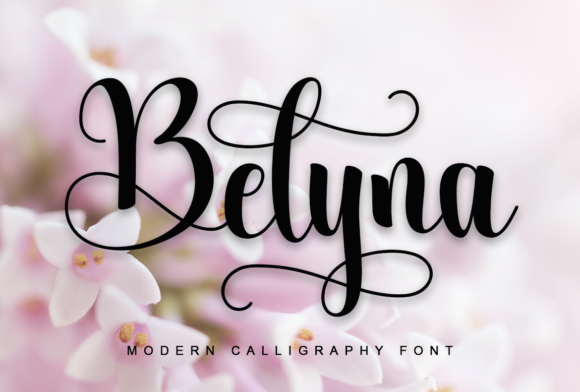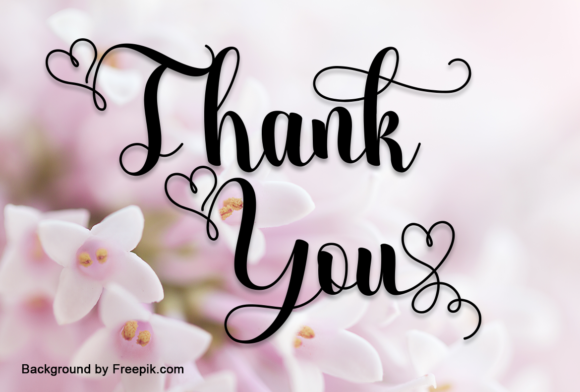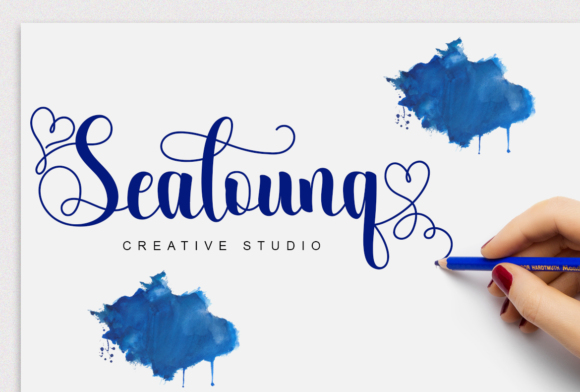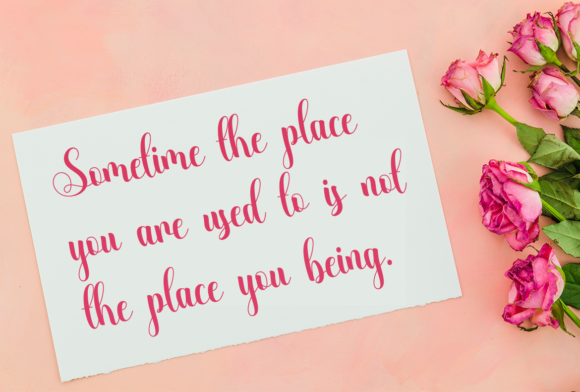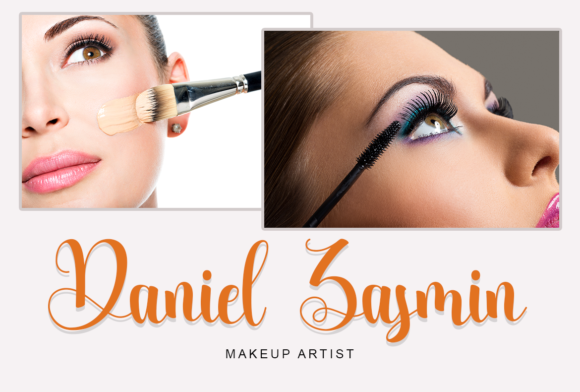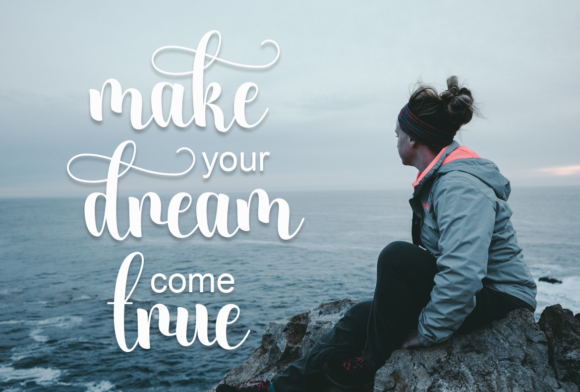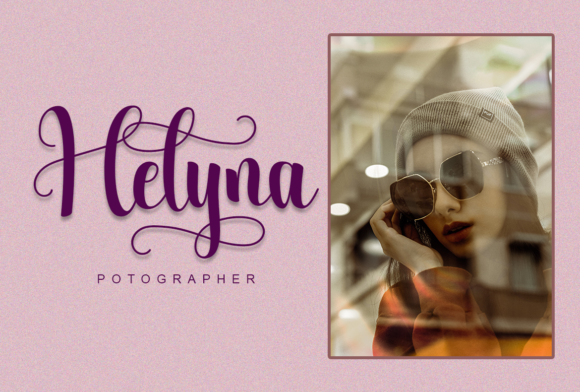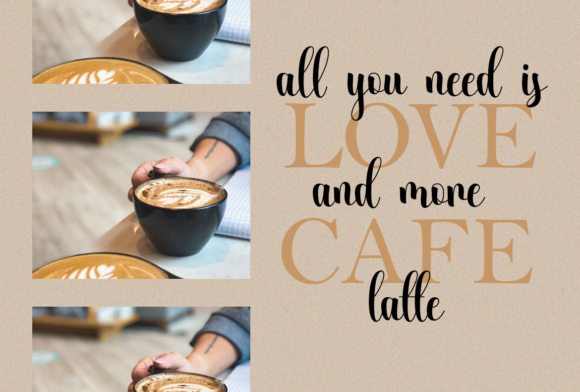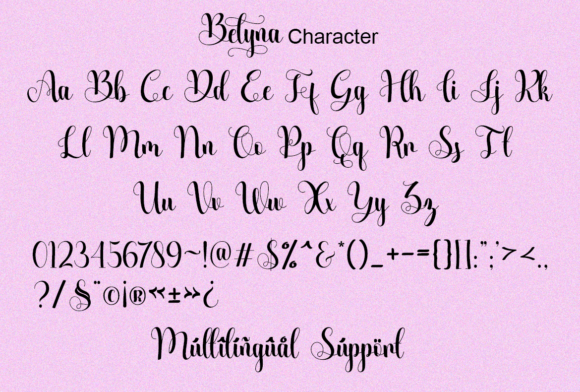
Belyna Font
About Belyna Font
Belyna is a font that exudes a dazzling and enchanting charm with a lovely atmosphere and flawless form. Drawing inspiration from timeless classic calligraphy, Belyna captures the essence of elegance and beauty. Its balance and variation make it a font that enhances the beauty of your projects, adding a touch of magic to every design.
With Belyna’s balanced and varied letterforms, it strikes the perfect balance between being not too thin and not too thick. This characteristic gives it a distinct and visually appealing presence, making it an ideal choice for a wide range of design projects.
The timeless classic calligraphy influence in Belyna infuses each letter with an air of sophistication and artistry. Whether it’s for wedding invitations, branding, packaging, or any creative endeavor, Belyna brings a touch of timeless beauty to every piece of work.
With PUA encoding, Belyna empowers you to explore all the glyphs and swashes with ease, offering a wealth of creative options at your fingertips. Personalize and customize your designs effortlessly, adding your unique touch to every project.
Embrace the dazzling charm of Belyna and experience how it elevates the beauty of your projects to new heights. Its lovely atmosphere and flawless form create a captivating visual experience that resonates with your audience.
Discover the joy of creating with Belyna as your creative tool, infusing your designs with a touch of elegance and allure. Let Belyna be the font that adds that extra sparkle to your projects, making them truly stand out in a sea of ordinary designs.
Fall in love with Belyna and let it be the font that brings your creative vision to life. Unlock its timeless charm and embrace the magic of classic calligraphy in your designs. Belyna is sure to become your go-to font for creating captivating and mesmerizing works of art that leave a lasting impression on all who encounter them.